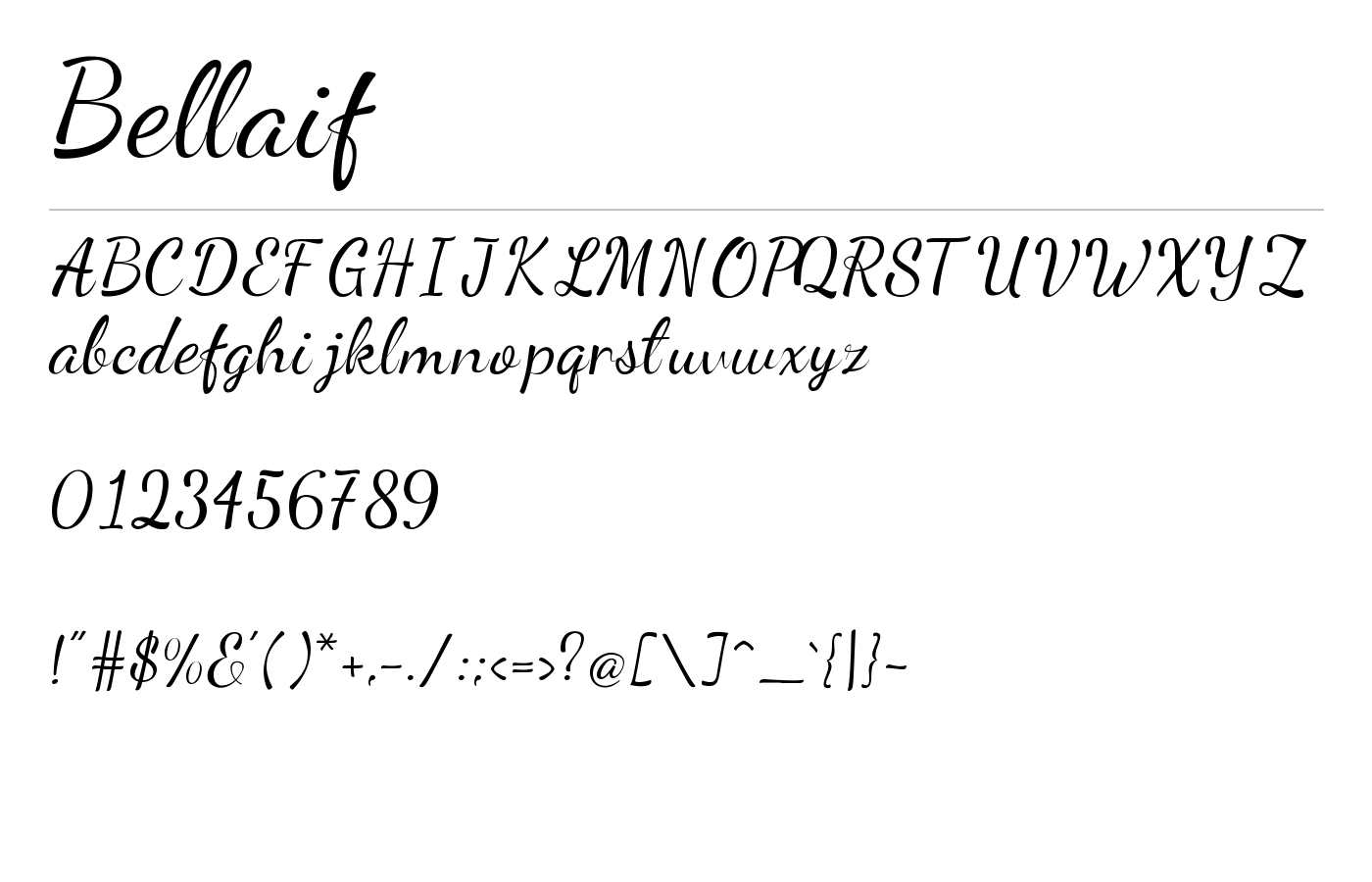
Bellaif is an elegant script font with smooth, flowing lines and a light, refined weight that gives it a graceful and sophisticated feel. Its slender letterforms with gentle curve contrasts make it ideal for stylish invitations, branding, and fashion design where a touch of classic charm and modern delicacy is desired. This font works beautifully in both display and smaller text uses, adding a personal yet polished look to any creative project.
Bellaif Font
About Bellaif Font